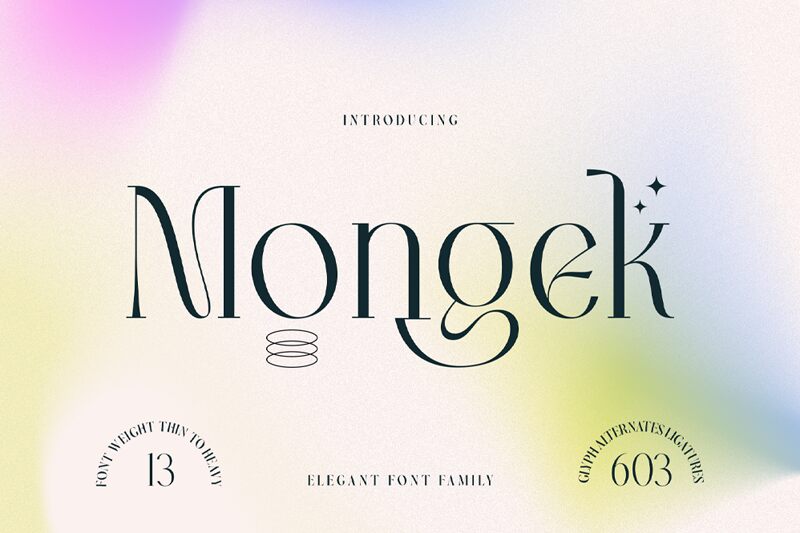
Mongek Regular
Looking for a font that exudes timeless elegance and sophistication? Look no further than Mongek, the vintage serif typeface from Alit Design. With its semi-light weight and condensed width, Mongek is perfect for creating sleek, professional designs that demand attention. Whether you're working on a high-end fashion campaign or designing an elegant wedding invitation suite, Mongek is the ideal choice for adding a touch of class to your project. Its classic yet modern style is sure to impress even the most discerning clients, making it a versatile font option for any designer looking to elevate their work to the next level.